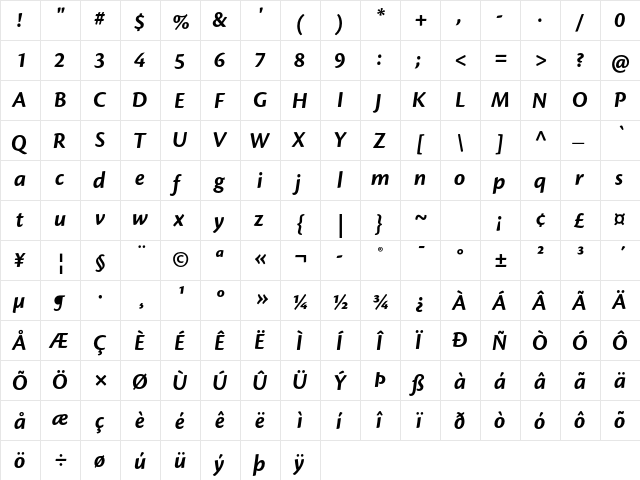
Cronos Pro Bold Subhead Italic
| Designer | Robert Slimbach |
Design Context for Cronos Pro Typeface
Cronos Pro offers clean, dependable letterforms without strong stylistic allegiance, making it a practical choice for designers who need flexibility. The slanted form adds forward momentum and visual energy. Its bold stroke weight gives it real presence on the page.
Pro Tip: Try Cronos Pro for annotation and caption copy alongside an upright companion — the contrast in angle creates a dynamic but ordered typographic system.